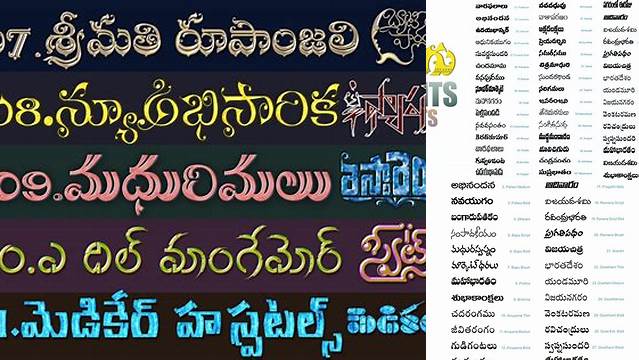
Telugu Non-Unicode Fonts: Comprehensive Guide
Are you looking to explore the world of Telugu non-Unicode fonts? Well, you've come to the right place! In this comprehensive guide, we'll dive deep into everything you need to know about these fonts, from their history and usage to their advantages and limitations. We will also discuss the importance of these fonts in preserving the rich heritage of the Telugu language and literature, and how they continue to be relevant in specific contexts even today. So, buckle up and get ready to embark on a fascinating journey into the realm of Telugu typography!
What are Telugu Non-Unicode Fonts?
Okay, let's start with the basics. Telugu non-Unicode fonts are digital typefaces that represent the Telugu script using older encoding standards, primarily pre-Unicode encodings. Unlike Unicode fonts, which use a universal character set and encoding, these fonts rely on specific, often proprietary, encoding schemes. This means that each character is mapped to a particular key or code point within that specific encoding. This approach to font design and usage was prevalent before the widespread adoption of Unicode, which aimed to standardize character encoding across all languages and platforms. In the context of Telugu, this meant that several different font encoding schemes emerged, each with its own mapping of Telugu characters to keyboard inputs. This diversity, while innovative in its time, led to significant compatibility issues as documents created with one encoding system might not display correctly on systems using a different encoding. The challenge for users was to ensure that the correct font and corresponding encoding were installed on their systems to view or edit Telugu text properly.
The development of these non-Unicode fonts was a crucial step in bringing Telugu script to the digital world. They allowed early adopters of computers to create documents, websites, and other digital content in Telugu. However, their limitations, particularly concerning compatibility and searchability, paved the way for the adoption of Unicode, which provides a more standardized and universally accessible solution for representing Telugu and other languages. Despite the move towards Unicode, non-Unicode fonts continue to hold a place in certain archives and legacy systems, underscoring the need for understanding their structure and usage. For those working with older documents or systems, familiarity with these fonts and their encoding schemes remains essential to properly access and preserve Telugu content from the pre-Unicode era. In essence, non-Unicode fonts represent a significant chapter in the history of digital Telugu, reflecting both the ingenuity and the challenges of early digital typography.
History of Telugu Non-Unicode Fonts
The history of Telugu non-Unicode fonts is a fascinating journey through the early days of digital typography in India. Before the advent of Unicode, creating digital representations of Indian scripts like Telugu was a complex challenge. Early computer systems were primarily designed for English and other Latin-based scripts, and they lacked the infrastructure to handle the intricate character sets and ligatures of Telugu. The Telugu script, with its numerous vowel and consonant combinations, presented unique encoding challenges. Developers and typographers had to devise creative solutions to map these complex characters onto the limited character spaces available in older encoding systems. This led to the creation of various proprietary encoding schemes, each with its own method of representing Telugu letters and symbols.
In the early days, the development of these fonts was often driven by individual companies, institutions, or even enthusiasts who saw the need for digital Telugu. These pioneers created fonts tailored to their specific needs or platforms, resulting in a fragmented landscape of font encodings. One common approach was to repurpose existing characters or symbols in the standard ASCII character set to represent Telugu letters. This required users to install specific fonts and use custom keyboard layouts to input Telugu text. The lack of a standardized encoding meant that documents created with one font might not display correctly on another system, leading to significant compatibility issues. Sharing documents and collaborating on projects became cumbersome, as it was necessary to ensure that everyone involved had the same fonts and encoding settings. This complexity often hindered the widespread adoption of digital Telugu in professional and academic settings.
Despite these challenges, the creation of Telugu non-Unicode fonts was a crucial step in the digitization of the language. These fonts enabled the creation of early digital documents, newspapers, and websites in Telugu. They allowed users to communicate and share information in their native language in the digital realm. The ingenuity and effort that went into developing these fonts laid the foundation for the later adoption of Unicode, which provided a more robust and standardized solution for digital Telugu. The transition to Unicode has largely resolved the compatibility issues associated with non-Unicode fonts, but understanding the history of these early fonts is crucial for those working with older documents or systems. It offers valuable insights into the evolution of digital typography and the challenges faced in representing complex scripts like Telugu in the digital age.
Why Were Non-Unicode Fonts Used?
There were several compelling reasons why non-Unicode fonts were used extensively before Unicode became the dominant standard. The primary reason was the limitations of early computing systems. Before Unicode, character encoding systems like ASCII and ANSI were prevalent. These systems were primarily designed for English and other Western European languages, which have relatively small character sets. They lacked the capacity to represent the vast array of characters and ligatures found in scripts like Telugu, which include numerous vowel and consonant combinations, as well as complex conjuncts. The limited character space in these older encodings made it challenging to accurately represent the full range of Telugu characters. Developers had to find creative ways to map the Telugu script onto these systems, often by repurposing existing characters or creating custom encoding schemes.
Another significant factor was the lack of a universal standard for character encoding. In the absence of Unicode, various companies and organizations developed their own proprietary encoding systems for Indian languages, including Telugu. This led to a proliferation of different fonts, each with its own unique character mapping. While these fonts allowed users to type and display Telugu text on their computers, they also created significant compatibility issues. Documents created with one font might not display correctly on systems using a different font or encoding. This lack of interoperability made it difficult to share documents and collaborate on projects. The user experience was often frustrating, as it required careful management of fonts and encoding settings to ensure that text displayed correctly.
Moreover, the adoption of Unicode was initially slow due to the lack of software and operating system support. Early versions of Windows and other operating systems did not fully support Unicode, which made it challenging to use Unicode fonts effectively. Software developers also needed time to update their applications to handle Unicode correctly. This meant that for many years, non-Unicode fonts remained the only practical option for working with Telugu text on computers. The transition to Unicode was a gradual process, and it took time for the technology and infrastructure to catch up with the needs of languages like Telugu. Despite their limitations, non-Unicode fonts played a crucial role in the early digitization of Telugu, allowing users to create and share content in their native language in the pre-Unicode era. They represent an important chapter in the history of digital typography and the evolution of multilingual computing.
Advantages and Disadvantages of Telugu Non-Unicode Fonts
Telugu non-Unicode fonts, like any technology, come with their own set of advantages and disadvantages. Understanding these pros and cons can help you appreciate their historical context and make informed decisions about when and how to use them. Let's start with the advantages. One of the main benefits of non-Unicode fonts was their early availability. They were among the first solutions that allowed Telugu to be represented digitally. In the pre-Unicode era, these fonts filled a critical gap by providing a means to create digital content in Telugu. They enabled users to produce documents, websites, and other materials in their native language, which was a significant step forward in the digitization of Telugu literature and communication. For many years, non-Unicode fonts were the only option for digital Telugu, and they played a crucial role in preserving and promoting the language in the digital realm.
Another advantage was that some users found non-Unicode fonts easier to use with specific software applications that were not fully Unicode-compliant. In certain cases, non-Unicode fonts may have offered better compatibility with legacy systems or older software that had not been updated to support Unicode. This could be a practical consideration for users who needed to work with older files or maintain compatibility with existing workflows. Additionally, some typographers and designers may have developed a preference for certain non-Unicode fonts due to their aesthetic qualities or unique character designs. These fonts often had distinctive styles that appealed to specific tastes, and some users may have chosen them for their artistic value. The familiarity and comfort level with specific fonts and keyboard layouts also played a role in their continued use.
However, the disadvantages of non-Unicode fonts are significant and ultimately led to the widespread adoption of Unicode. The most prominent drawback is the lack of standardization. Non-Unicode fonts rely on proprietary encoding schemes, which means that a document created with one font may not display correctly on a system that uses a different font or encoding. This creates significant compatibility issues and makes it difficult to share documents and collaborate on projects. The inconsistency in character mapping across different fonts can lead to garbled text and frustration for users. Searchability is another major limitation. Text encoded in non-Unicode fonts cannot be easily searched or indexed, which makes it challenging to find specific information within documents or on the web. This is a significant impediment to information retrieval and knowledge management.
The limitations of non-Unicode fonts also extend to multilingual support. They are typically designed for a single language or script, which means they cannot be used to create documents that mix multiple languages. This restricts their utility in a globalized world where multilingual communication is increasingly common. Furthermore, non-Unicode fonts can pose challenges for web accessibility. Screen readers and other assistive technologies may not be able to correctly interpret the text, making it difficult for people with disabilities to access the content. The move to Unicode has largely addressed these issues, providing a standardized and universally accessible solution for digital typography. While non-Unicode fonts served an essential purpose in the early days of digital Telugu, their limitations make Unicode the preferred choice for modern applications.
Converting from Non-Unicode to Unicode
If you have old documents or files that use Telugu non-Unicode fonts, you might be wondering how to convert them to Unicode. This is an important step to ensure that your content remains accessible and searchable in the long term. Converting from non-Unicode to Unicode can seem daunting, but several tools and methods are available to make the process easier. The primary reason for conversion is to overcome the limitations of non-Unicode fonts, such as compatibility issues and lack of searchability. Unicode provides a standardized character encoding that ensures your Telugu text will display correctly on any system, regardless of the fonts installed. It also enables proper indexing and searching of your content, making it easier to find specific information. Additionally, Unicode is essential for web accessibility, as it allows screen readers and other assistive technologies to interpret the text correctly.
One common method for converting non-Unicode to Unicode is using specialized font converters. These tools are designed to take text encoded in a specific non-Unicode font and transform it into Unicode text. There are various software programs and online converters available that support different Telugu non-Unicode fonts. These converters typically work by mapping the characters in the non-Unicode font to their corresponding Unicode code points. The conversion process may involve selecting the input font, pasting the text, and then choosing the desired Unicode encoding. It's important to select the correct input font to ensure accurate conversion. Some converters also offer batch processing capabilities, allowing you to convert multiple files at once, which can save a significant amount of time and effort.
Another approach is to use word processing software that supports non-Unicode to Unicode conversion. Microsoft Word, for example, has built-in features that can help you convert text from certain non-Unicode fonts to Unicode. This typically involves opening the document in Word, selecting the text, and then changing the font to a Unicode font like Arial Unicode MS or Latha. Word may automatically handle the conversion process, or you may need to use a specific conversion tool or macro. The advantage of using word processing software is that it allows you to edit and format the text after conversion, ensuring that the document looks exactly as you intended. However, this method may not be suitable for large documents or for fonts that are not well-supported by the software.
Optical Character Recognition (OCR) technology can also be used for conversion, particularly for scanned documents or images that contain Telugu text in non-Unicode fonts. OCR software analyzes the visual appearance of the text and attempts to identify the characters, converting them into digital text. While OCR can be a powerful tool, it's important to note that the accuracy of the conversion depends on the quality of the scanned image and the sophistication of the OCR software. Errors may occur, especially with complex characters or ligatures, so it's essential to proofread the converted text carefully. Once the text has been converted to Unicode, it can be saved in a standard format like UTF-8, ensuring that it remains accessible and searchable across different platforms and applications. Converting your Telugu text from non-Unicode to Unicode is a crucial step in preserving and promoting your content in the digital age.
Popular Telugu Non-Unicode Fonts
There were several popular Telugu non-Unicode fonts that were widely used before the adoption of Unicode. These fonts played a crucial role in the early digitization of the Telugu language and were essential for creating documents, websites, and other digital content. Some of the most well-known fonts include Annapurna, Gautami, and Vani. Annapurna was a widely used font known for its clear and legible character design. It was popular for both print and digital media and was often used in newspapers, magazines, and books. The font's readability made it a favorite among users who needed to create professional-looking documents in Telugu. Gautami was another popular choice, known for its elegant and stylish appearance. It was often used in creative and design-oriented projects, such as posters, brochures, and websites. Gautami's distinctive character shapes added a touch of sophistication to Telugu text. Vani was also a commonly used font, recognized for its simple and functional design. It was often used in official documents, reports, and other formal publications. Vani's clean lines and clear letterforms made it a reliable choice for a wide range of applications.
These fonts, and others like them, were developed by various companies, institutions, and individuals who recognized the need for digital Telugu typography. Each font had its own unique character mapping and encoding scheme, which led to compatibility issues when documents created with one font were opened on systems that used a different font. This lack of standardization was one of the main challenges of working with non-Unicode fonts. Users had to ensure that the correct font was installed on their system to view or edit Telugu text properly. Despite these challenges, these fonts were instrumental in bringing Telugu to the digital world. They allowed users to communicate and share information in their native language in the pre-Unicode era. The effort and ingenuity that went into creating these fonts laid the foundation for the later adoption of Unicode, which provided a more robust and standardized solution for digital Telugu.
Other notable Telugu non-Unicode fonts included types developed by CDAC (Centre for Development of Advanced Computing) and various other private vendors. These fonts often catered to specific needs, such as desktop publishing or web design. Some fonts were designed to mimic traditional Telugu handwriting styles, while others aimed for a more modern and contemporary look. The diversity of these fonts reflected the creativity and innovation of the early digital typography community in Telugu. However, the lack of interoperability between these fonts also highlighted the need for a universal standard like Unicode. The transition to Unicode has largely resolved the compatibility issues associated with non-Unicode fonts, but understanding the history of these early fonts is crucial for those working with older documents or systems. It provides valuable insights into the evolution of digital typography and the challenges faced in representing complex scripts like Telugu in the digital age. The legacy of these fonts lives on in the archives and documents created before the widespread adoption of Unicode, and they remain an important part of the history of digital Telugu.
The Shift to Unicode
The shift to Unicode was a pivotal moment in the history of digital typography, particularly for languages with complex scripts like Telugu. Unicode is a universal character encoding standard that aims to provide a unique code point for every character in every language. This means that, unlike non-Unicode fonts, Unicode fonts can represent a vast array of characters from different languages and scripts, all within a single encoding scheme. The adoption of Unicode has had a profound impact on the way Telugu and other Indian languages are used in the digital world. It has largely resolved the compatibility issues associated with non-Unicode fonts and has made it much easier to create, share, and access digital content in Telugu.
The transition to Unicode was driven by the need for a standardized solution to the challenges posed by non-Unicode fonts. As discussed earlier, non-Unicode fonts rely on proprietary encoding schemes, which means that documents created with one font may not display correctly on systems that use a different font. This lack of interoperability created significant problems for users who needed to share documents or collaborate on projects. The proliferation of different encoding schemes made it difficult to search and index Telugu text, hindering information retrieval and knowledge management. The shift to Unicode addressed these issues by providing a single, unified encoding for all Telugu characters. This ensures that text displays correctly on any system that supports Unicode, regardless of the fonts installed.
Another key advantage of Unicode is its support for multilingual content. Unicode fonts can represent characters from multiple languages and scripts, which makes it possible to create documents that mix Telugu with English or other languages. This is particularly important in today's globalized world, where multilingual communication is increasingly common. Unicode also enables better web accessibility. Screen readers and other assistive technologies can correctly interpret Unicode text, making it easier for people with disabilities to access digital content. The move to Unicode has therefore made digital Telugu more inclusive and accessible to a wider audience. The adoption of Unicode has also facilitated the development of better tools and technologies for working with Telugu text. Modern operating systems, word processing software, and web browsers all have robust support for Unicode, which makes it easier to type, display, and manipulate Telugu text.
The transition to Unicode was a gradual process, and it took time for the technology and infrastructure to catch up with the needs of languages like Telugu. Early versions of software and operating systems did not always fully support Unicode, which made it challenging to use Unicode fonts effectively. However, over time, Unicode support has become ubiquitous, and it is now the preferred standard for digital typography in Telugu. While non-Unicode fonts still exist in archives and legacy systems, Unicode is the clear choice for modern applications. The shift to Unicode has been a significant step forward in the digitization of Telugu, making it easier to create, share, and access content in the language. It has also paved the way for new opportunities in areas such as digital publishing, online education, and multilingual communication.
In conclusion, the world of Telugu non-Unicode fonts is a fascinating chapter in the history of digital typography. While these fonts may seem like a relic of the past, understanding their history, advantages, and limitations provides valuable context for the evolution of digital Telugu. From their early availability and role in digitizing Telugu literature to their compatibility issues and the subsequent shift to Unicode, these fonts have played a significant role in shaping how Telugu is used in the digital world. Although Unicode has become the dominant standard, non-Unicode fonts still hold a place in certain archives and legacy systems, underscoring the need for awareness and conversion efforts.
We've explored the reasons why non-Unicode fonts were used, their advantages and disadvantages, the process of converting them to Unicode, and some popular examples of these fonts. The transition to Unicode has brought about a standardized and universally accessible solution for digital Telugu, addressing many of the limitations of non-Unicode fonts. This shift has made it easier to create, share, and access Telugu content across different platforms and applications. As technology continues to evolve, it's important to remember the challenges and innovations that paved the way for the digital landscape we have today. The story of Telugu non-Unicode fonts is a testament to the ingenuity and perseverance of those who sought to bring the richness of the Telugu language to the digital realm. Embracing Unicode ensures that Telugu continues to thrive in the digital age, with enhanced compatibility, searchability, and accessibility for all users.
So, next time you encounter an old Telugu document or file, remember the legacy of non-Unicode fonts and the journey towards a unified digital world. Understanding the past helps us appreciate the present and prepare for the future of digital typography. Guys, keep exploring and keep learning! The world of digital languages is vast and ever-evolving, and there's always something new to discover.